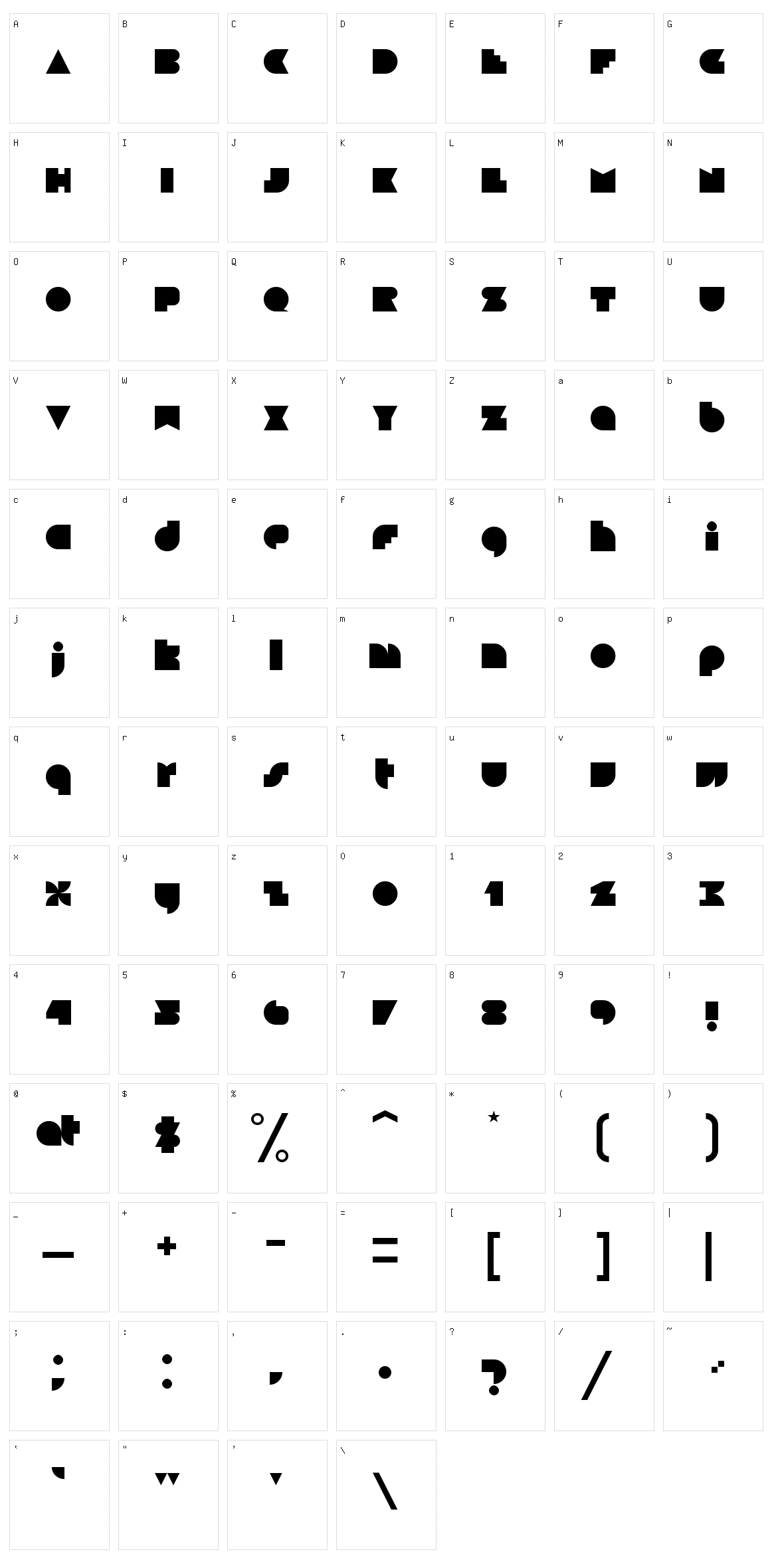
The free font Blackfoot is carefully designed by FontBlast Design, showcasing a thoughtful balance of creativity and usability and falls under the Groovy font style. When you download the ZIP file, it contains only 6.41 KB of font files, making it lightweight and quick to download. Please review the license details below to understand permitted usage and distribution rights. If license information is not available, we recommend using this font for personal projects only or contacting the author directly for commercial usage permissions.
The FontStruction âBlackfootâ